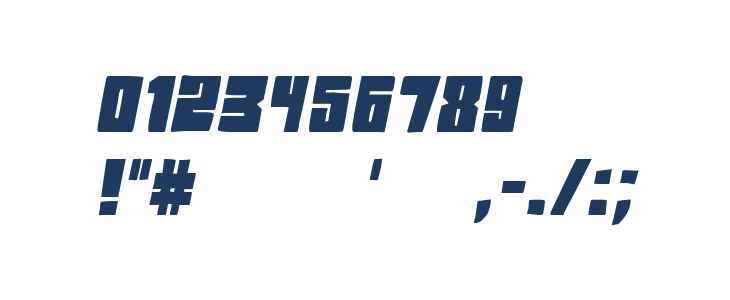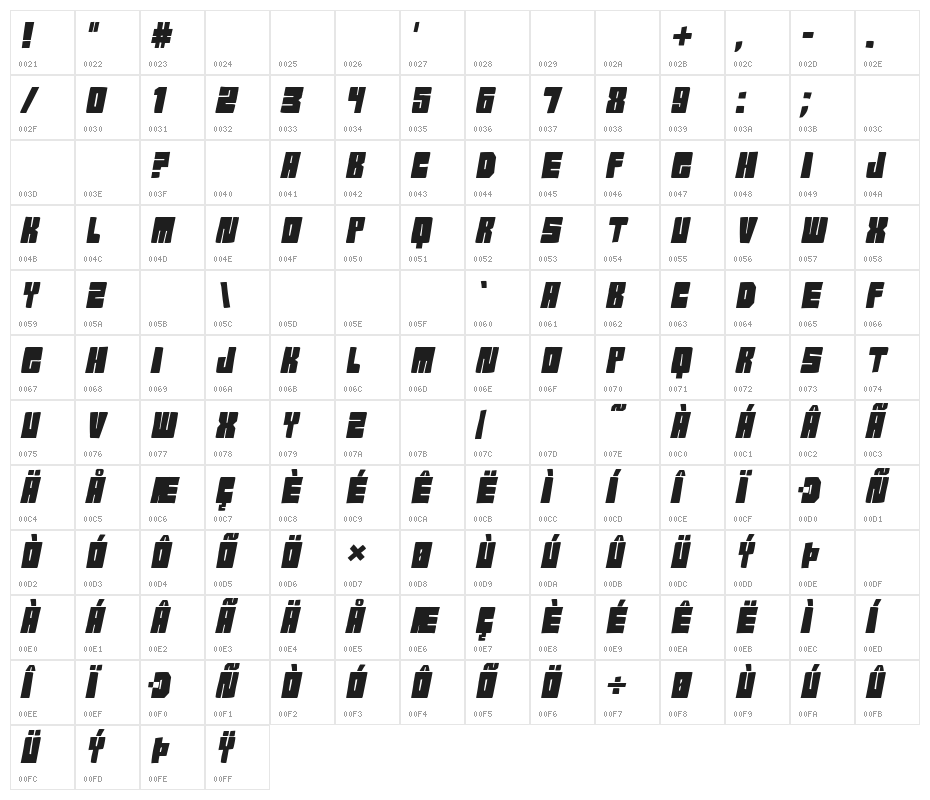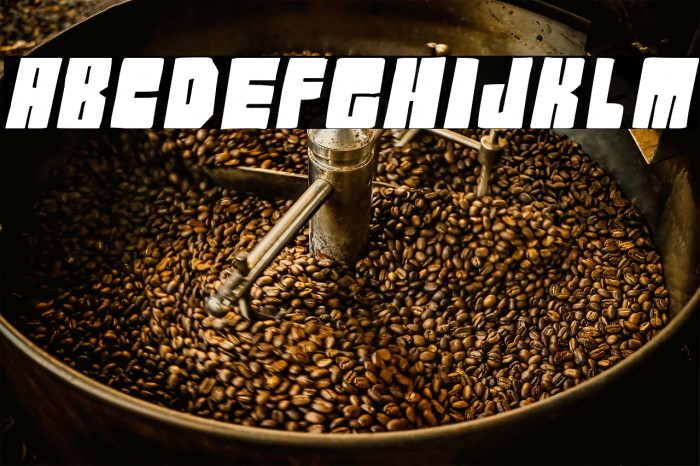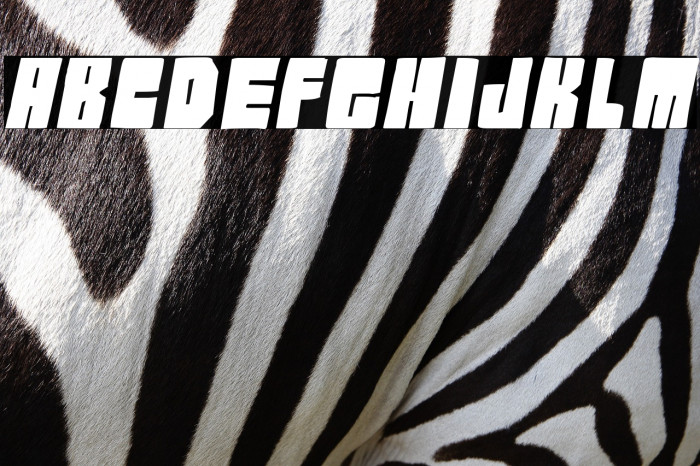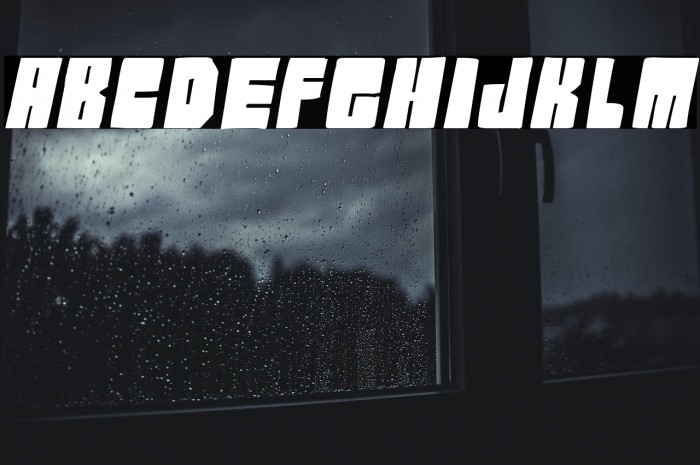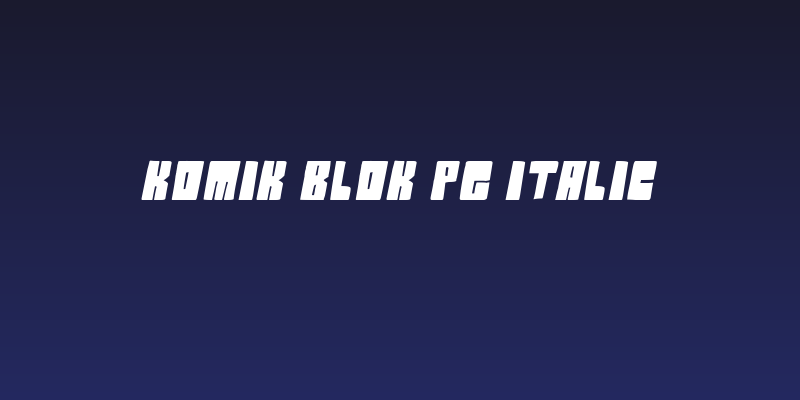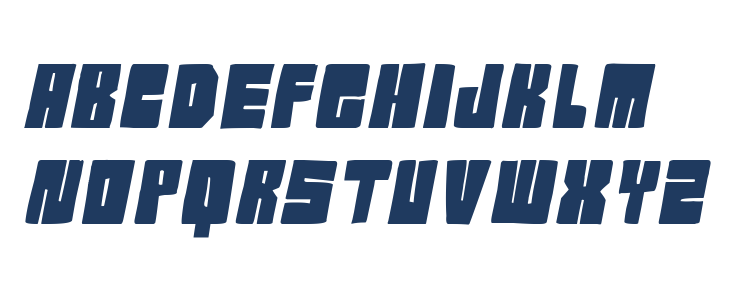
Komik Blok pg Italic Font
Komik Blok pg Italic Description
This font features a bold, blocky style with a distinct slant, giving it an italicized appearance. The characters are heavily stylized with sharp angles and a strong presence, making it ideal for attention-grabbing headlines or titles. The uppercase and lowercase letters maintain a consistent width, contributing to a uniform look across the text. Numbers and special characters are designed with the same boldness and angularity, ensuring a cohesive visual identity. The overall style is modern and dynamic, suitable for projects that require a bold statement.
| Proposed Projects | Ideal for comic book titles, posters, logos, and any design needing a bold, dynamic look. |